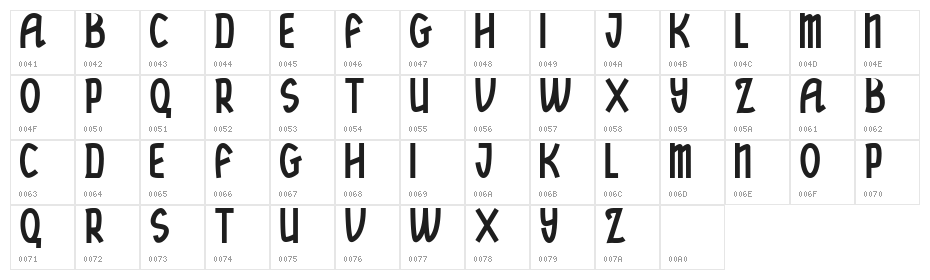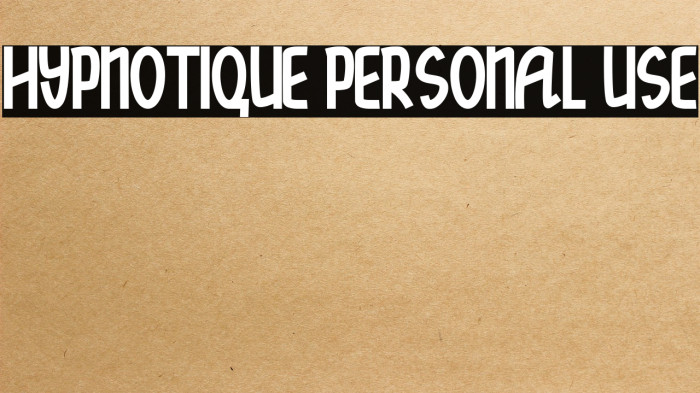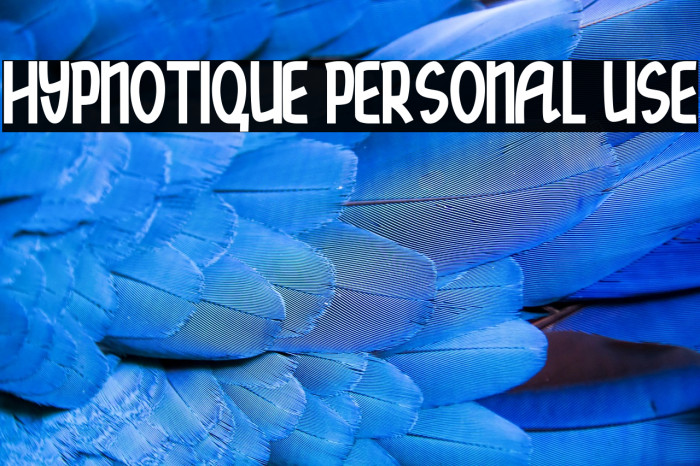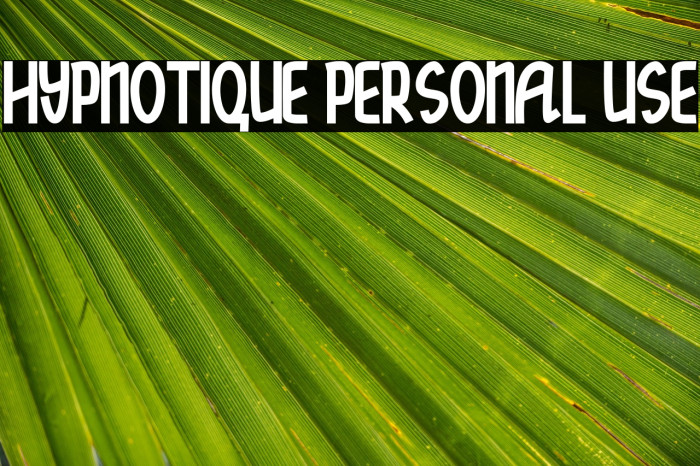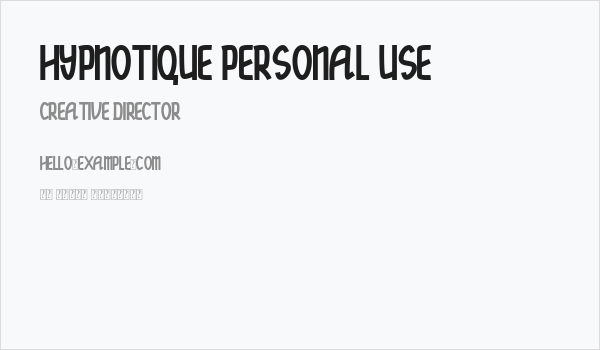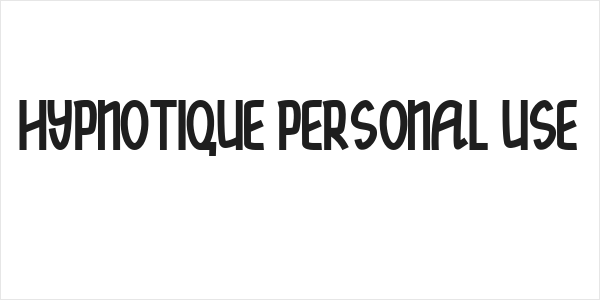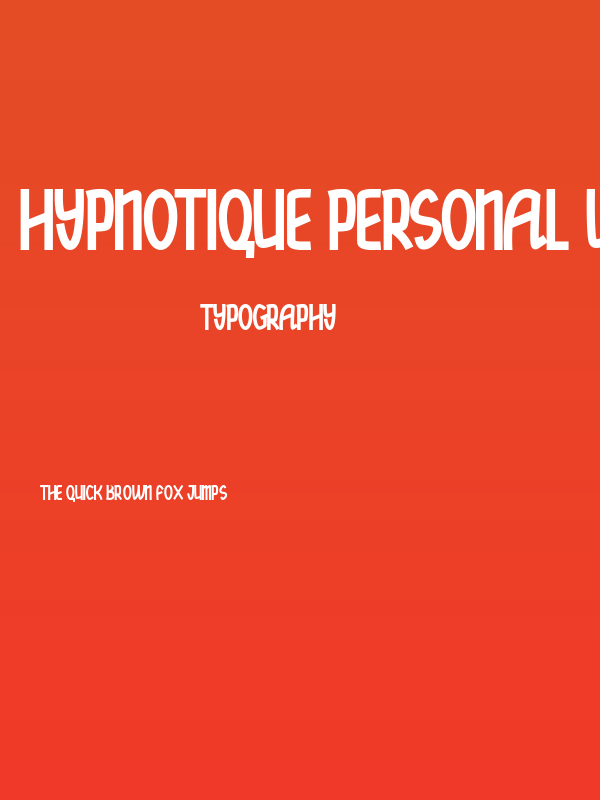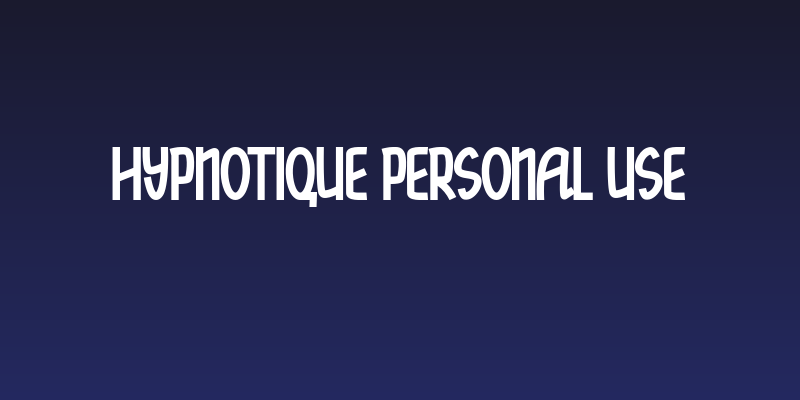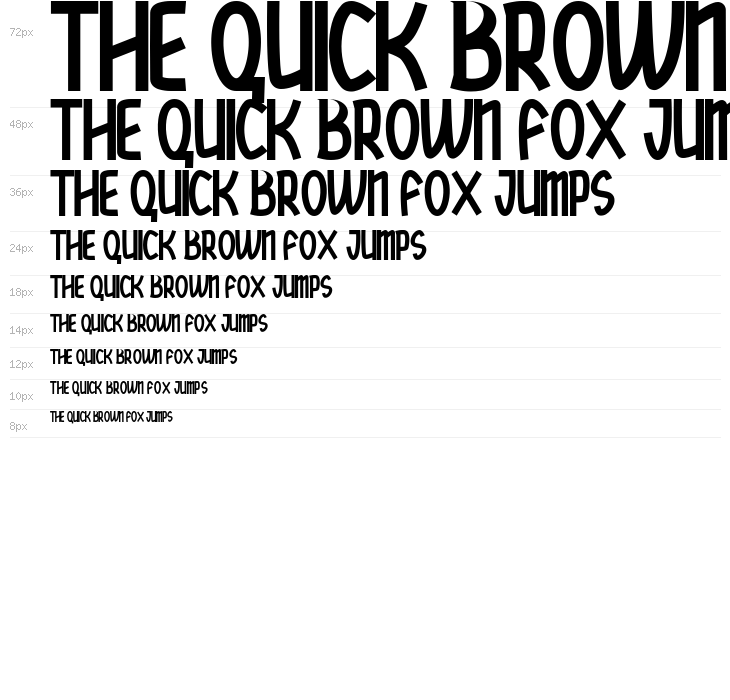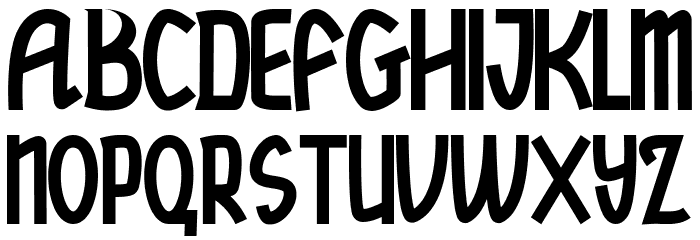
hypnotique personal use Font
hypnotique personal use Description
This font features a bold and dynamic style with a distinctive, slightly retro feel. The characters are crafted with a unique flair, showcasing a blend of sharp angles and smooth curves. The uppercase letters are particularly striking, with a strong presence that commands attention. The lowercase letters maintain the same boldness, ensuring consistency across the typeface. This font is perfect for projects that require a touch of vintage charm combined with modern boldness. Its unique character shapes make it ideal for creative and artistic designs.
| Overall Style | Vintage, Decorative |
| Proposed Projects | Ideal for posters, logos, album covers, and any design needing a bold, artistic touch. |